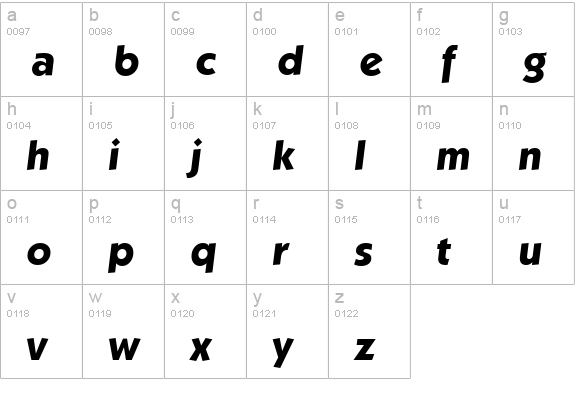
KoblenzSerial-Xbold-Italic Font Details
KoblenzSerial-Xbold-Italic is a distinctive, italic variant in the KoblenzSerial typeface family \xE2\x80\x94 well suited to design and typography projects.
KoblenzSerial-Xbold-Italic is a modern and stylish font that exudes sophistication and elegance. Its bold and italic style adds a touch of uniqueness to any design project, making it perfect for headlines, titles, and branding materials. The sharp lines and sleek curves of this font give it a contemporary feel, while still maintaining a classic appeal. One of the best things about KoblenzSerial-Xbold-Italic is that it is available for free download at FontsMarket.com. This means that you can easily access this high-quality font and use it in your projects without any additional cost. Whether you're a professional designer or just someone looking to spruce up their creative projects, KoblenzSerial-Xbold-Italic is a fantastic choice that won't break the bank. Embrace the versatility and elegance of KoblenzSerial-Xbold-Italic in your next project and watch as it adds a touch of sophistication and style that sets your design apart. Download this font for free today and elevate your creative work to new heights.